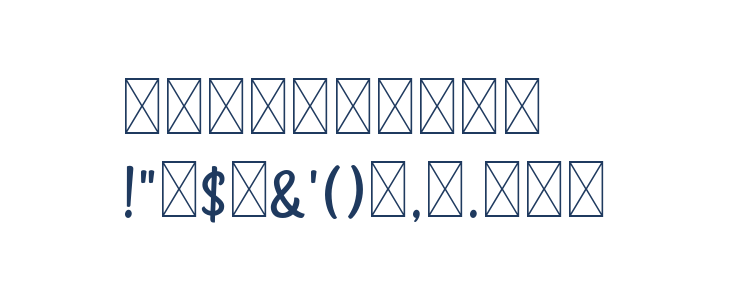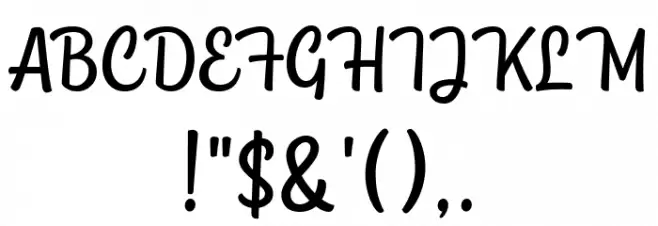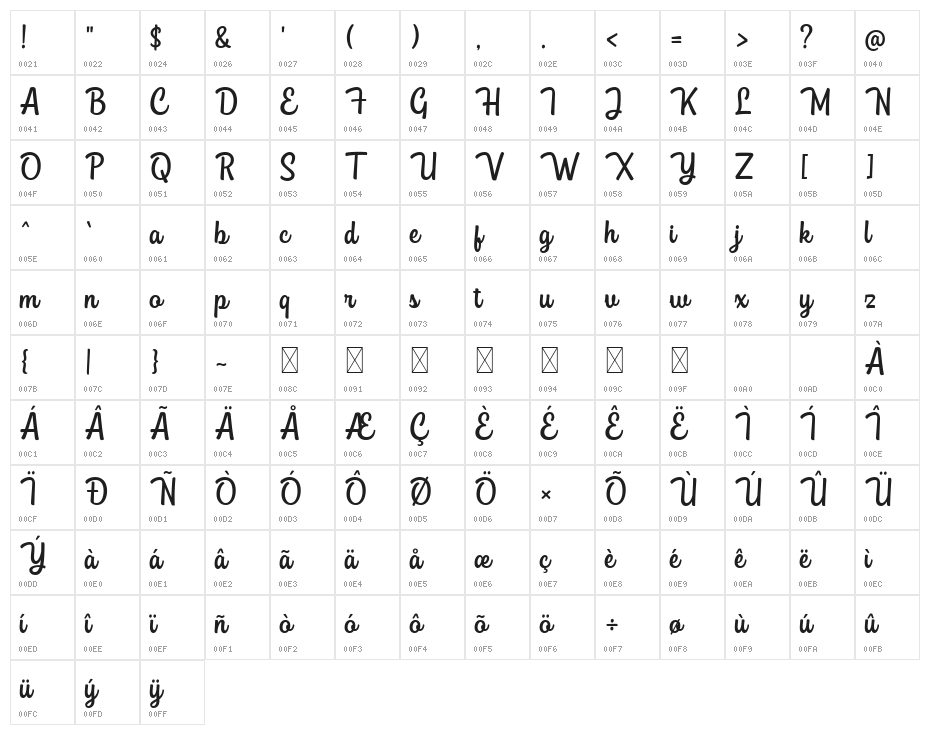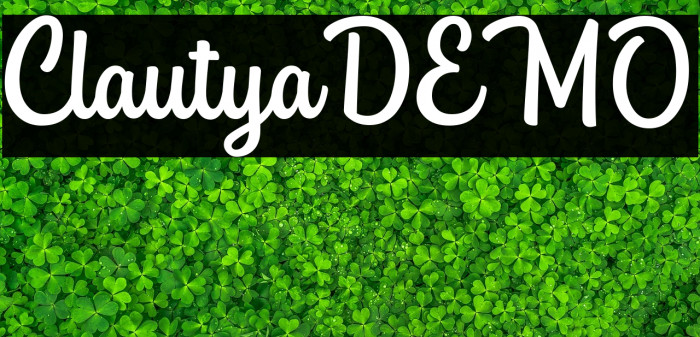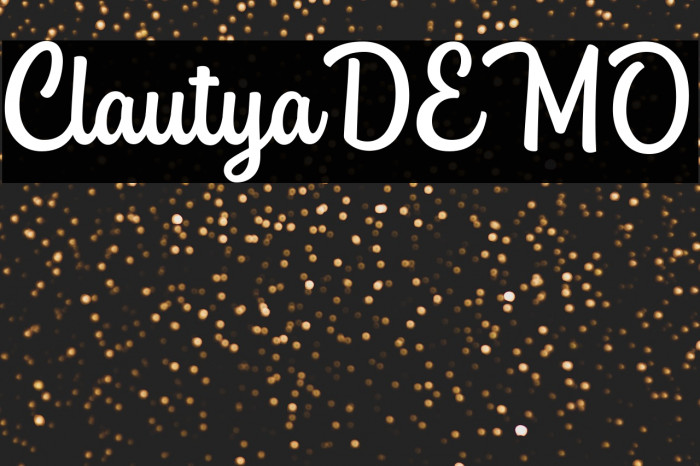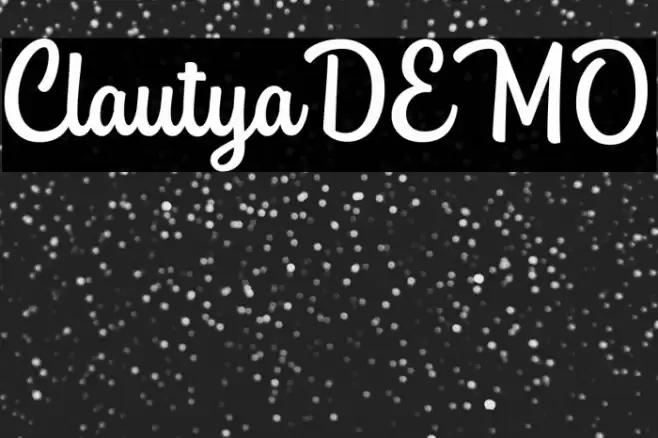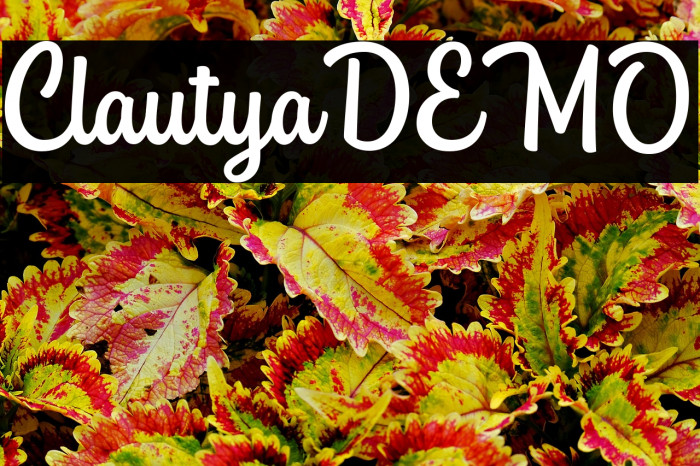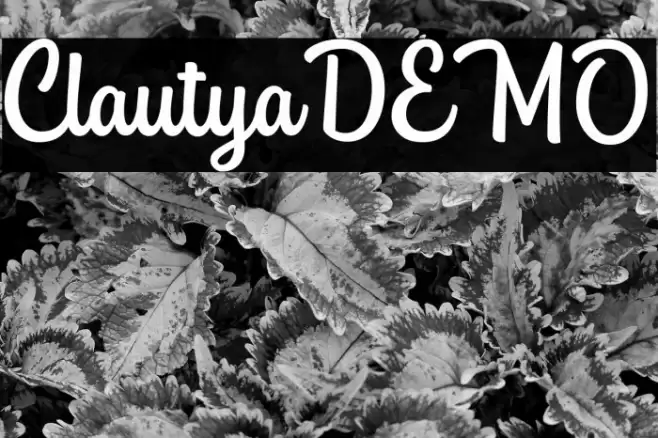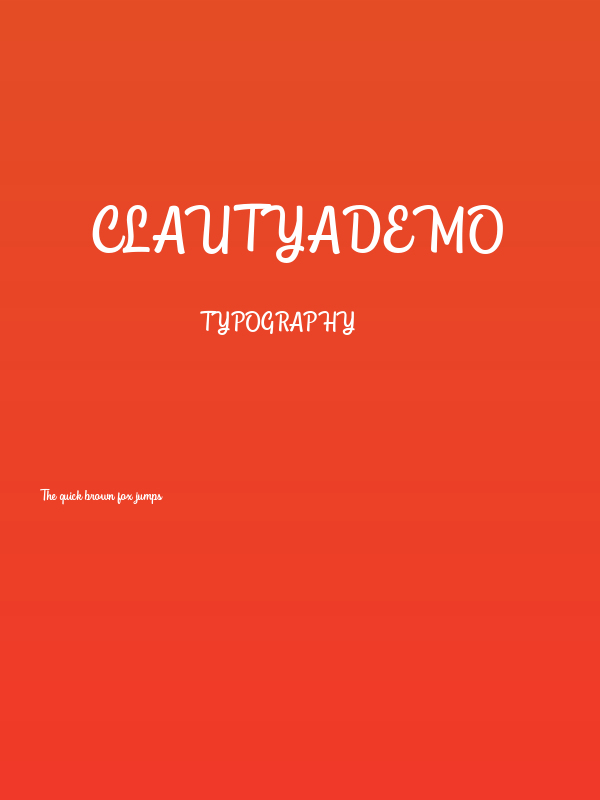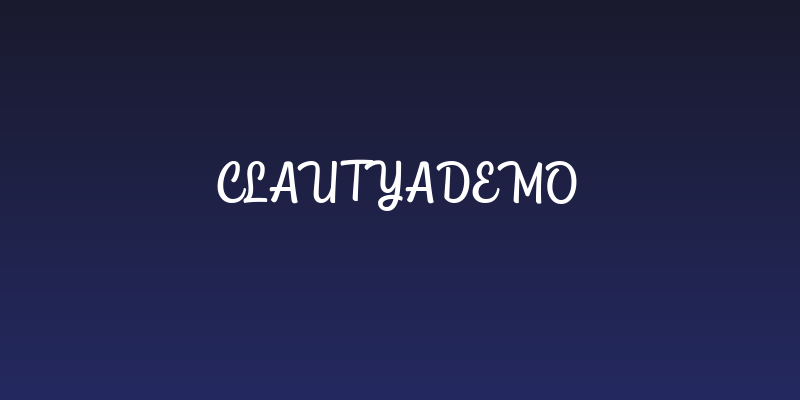
ClautyaDEMO Font
ClautyaDEMO Description
This font features a playful and casual script style with a handwritten appearance. The characters are slightly slanted, giving a dynamic and informal feel. The strokes are smooth and fluid, with a consistent thickness throughout, which adds to its readability. The uppercase letters are bold and prominent, while the lowercase letters maintain a friendly and approachable look. The font includes a full set of numerals and a variety of punctuation marks, making it versatile for different uses. Its overall design is modern yet retains a touch of classic handwritten charm.
| Proposed Projects | Ideal for greeting cards, invitations, personal branding, and social media graphics. |